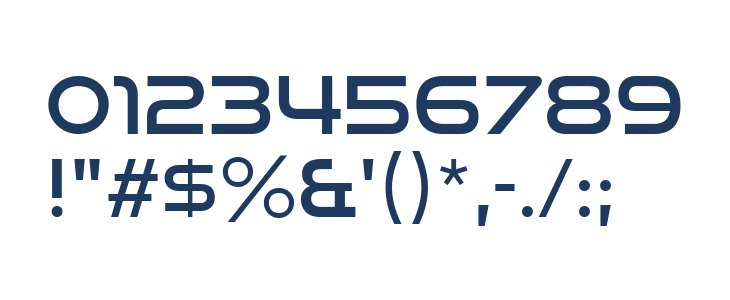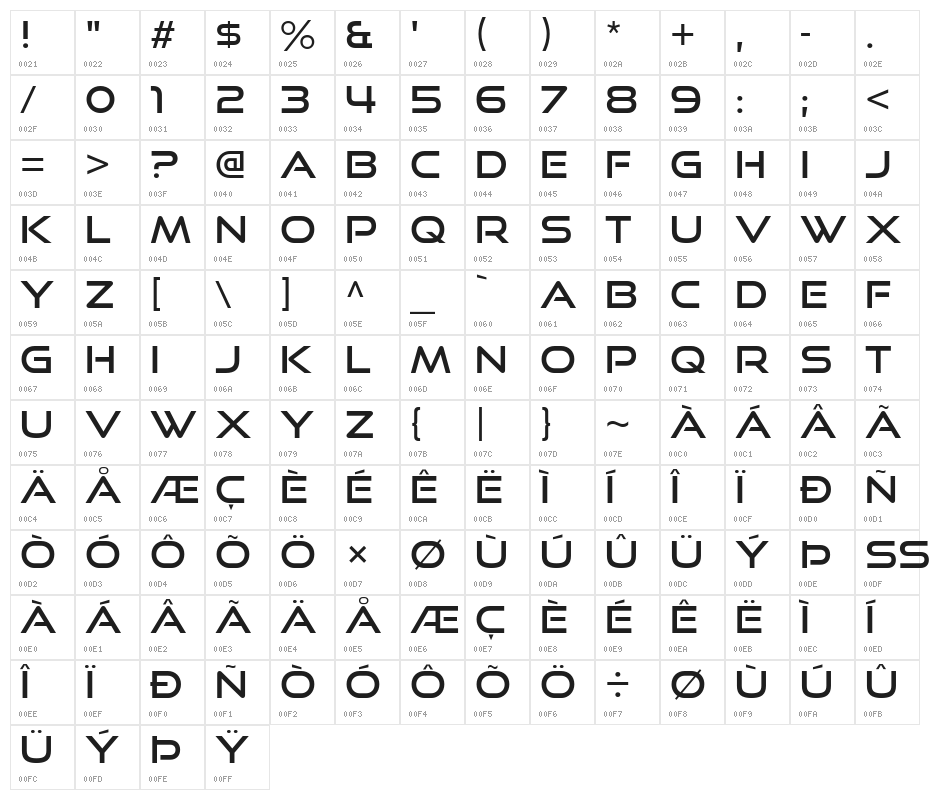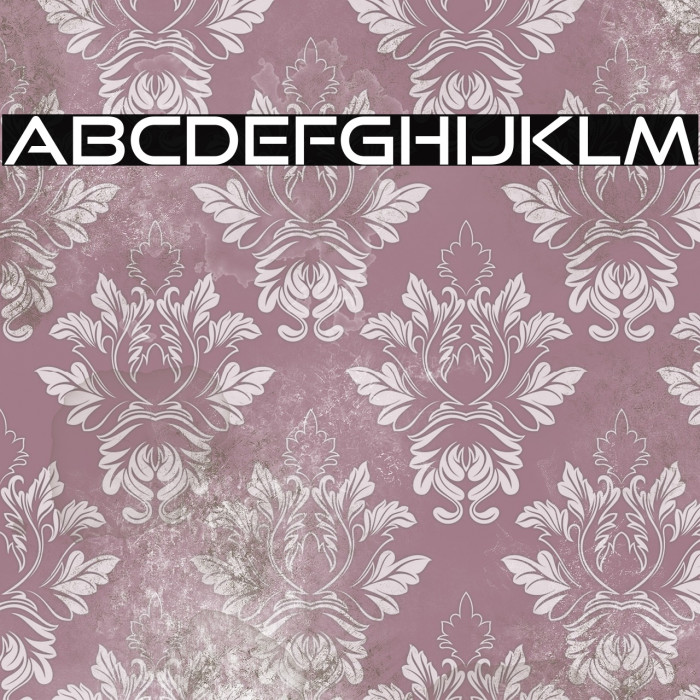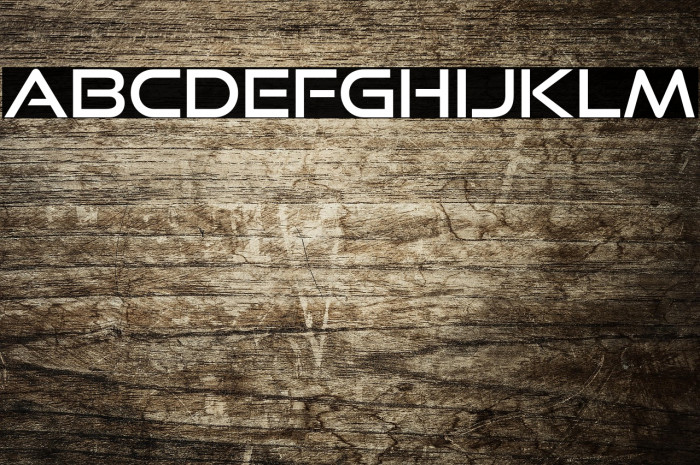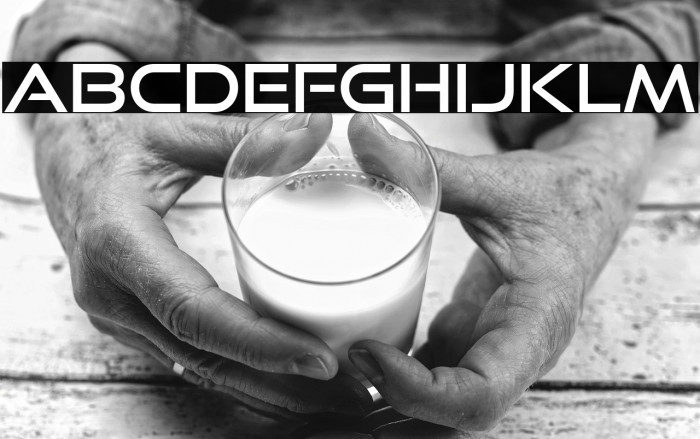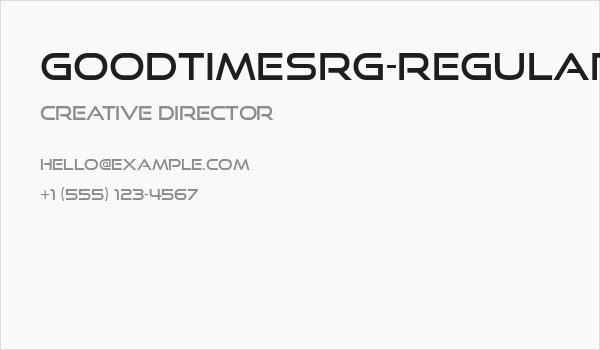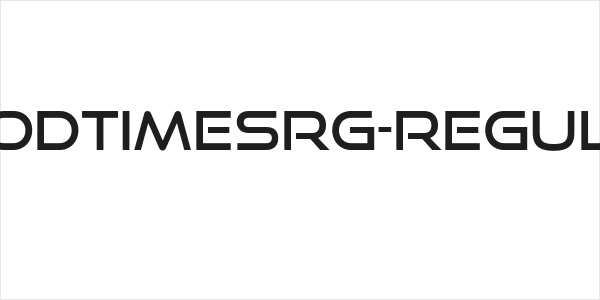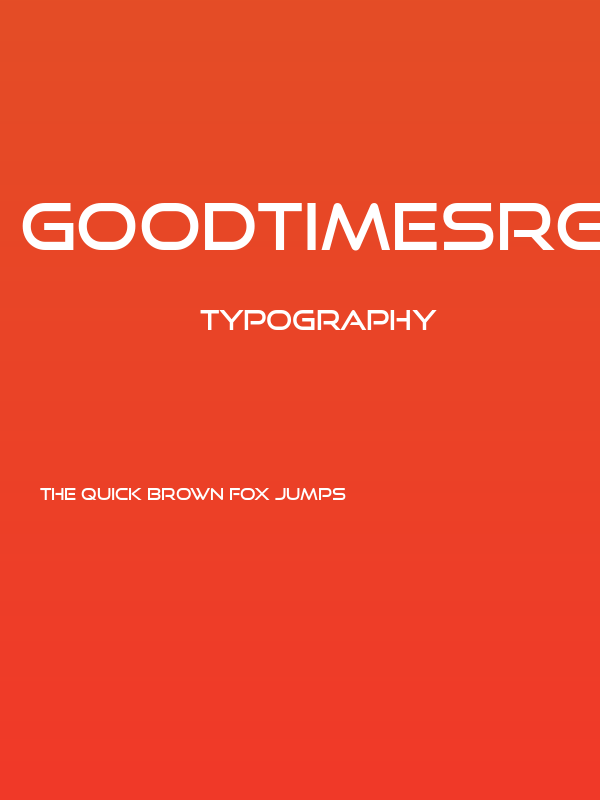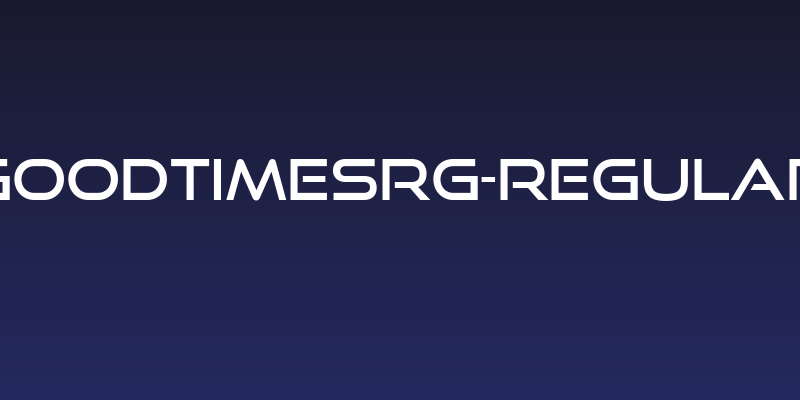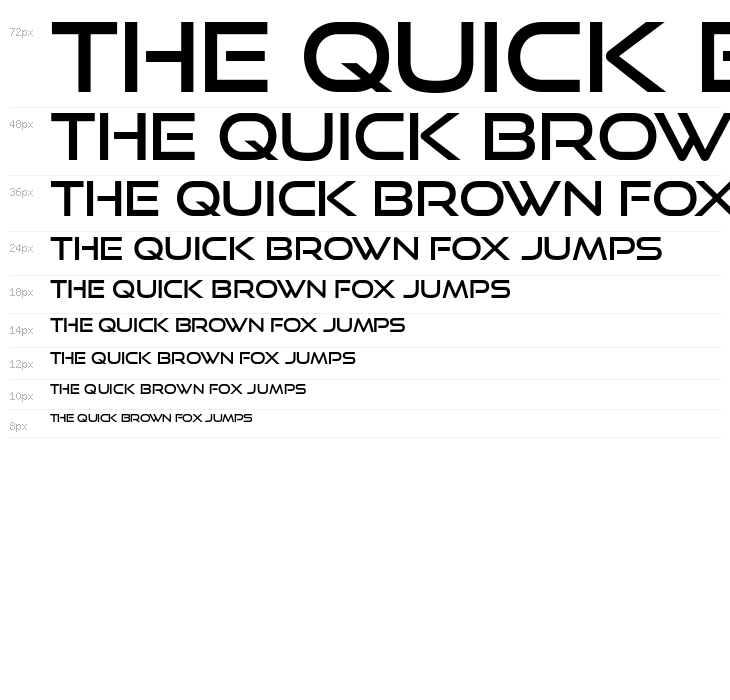
GoodTimesRg-Regular Font
GoodTimesRg-Regular Description
This font features a sleek, futuristic design with geometric shapes and clean lines. The uppercase letters are bold and angular, giving a sense of modernity and technology. The lowercase letters maintain the same geometric style, ensuring consistency throughout. Numbers are equally bold and clear, making them highly legible. Special characters are designed to match the overall aesthetic, with sharp edges and a contemporary feel. The font's uniformity and precision make it ideal for projects that require a modern and technical appearance.
| Use Case | Headlines, Logos, Digital interfaces |
| Proposed Projects | Ideal for technology branding, sci-fi themed projects, modern advertising, and digital interfaces. |